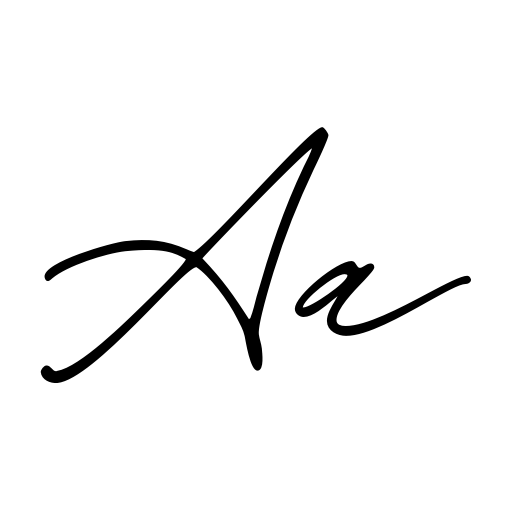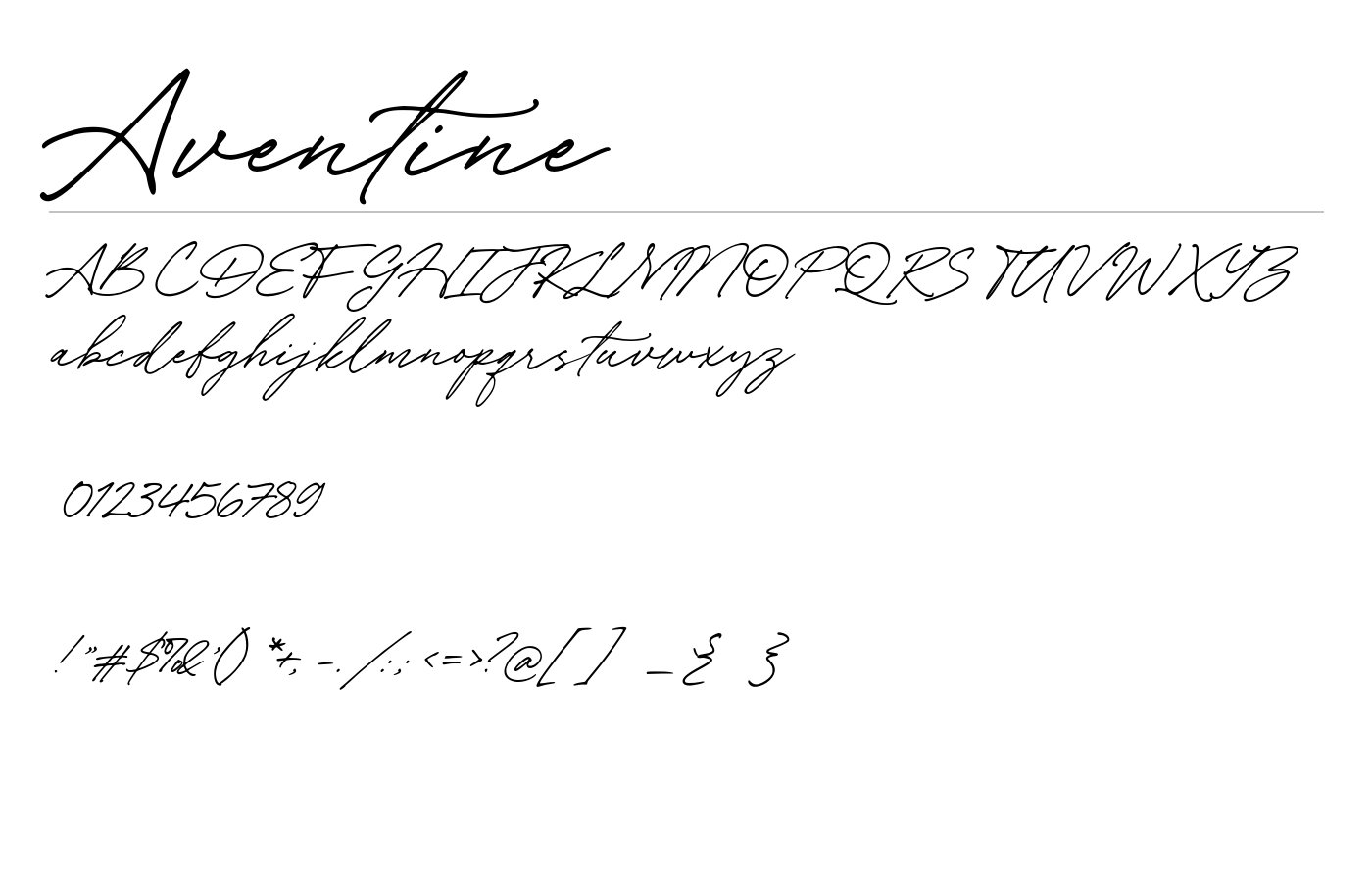
Aventine is an elegant, handwritten script font characterized by its light, flowing strokes and refined calligraphic style. Its delicate, airy letterforms with graceful curves and a natural, personal touch make it ideal for projects seeking a sophisticated, intimate feel, such as wedding invitations, luxury branding, or upscale editorial design. This font shines in uses that benefit from its stylish yet approachable personality, adding a sense of elegance and warmth.
Aventine Font
About Aventine Font
| Font family | Aventine Font |